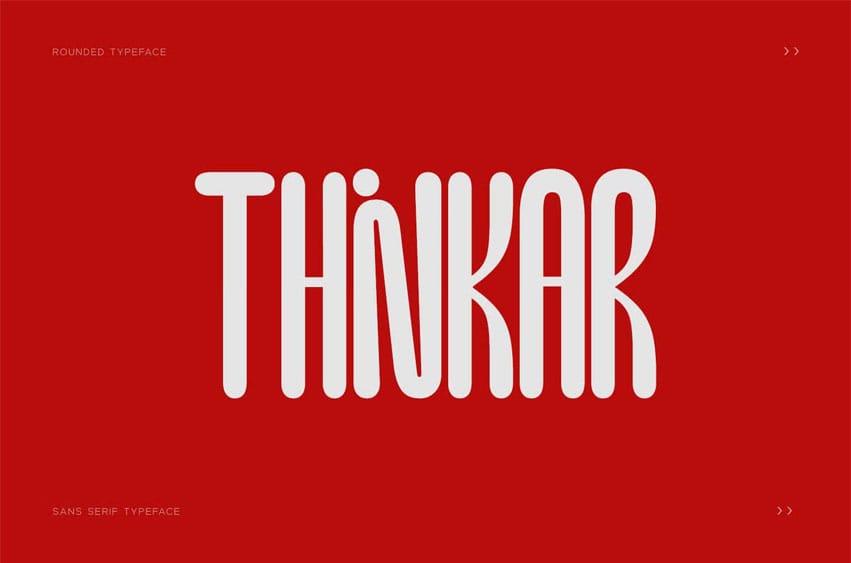
Thinkar Font is a sans-serif font. Perfect for funny posters, cheerful banners, party invitations, social media graphics, kids’ designs, and more. Thinkar combines a modern look. This unique typeface blends bold curves and quirky shapes to convey energy, warmth, and creativity, making it ideal for brands and creators looking to express fun, friendliness, and approachability.